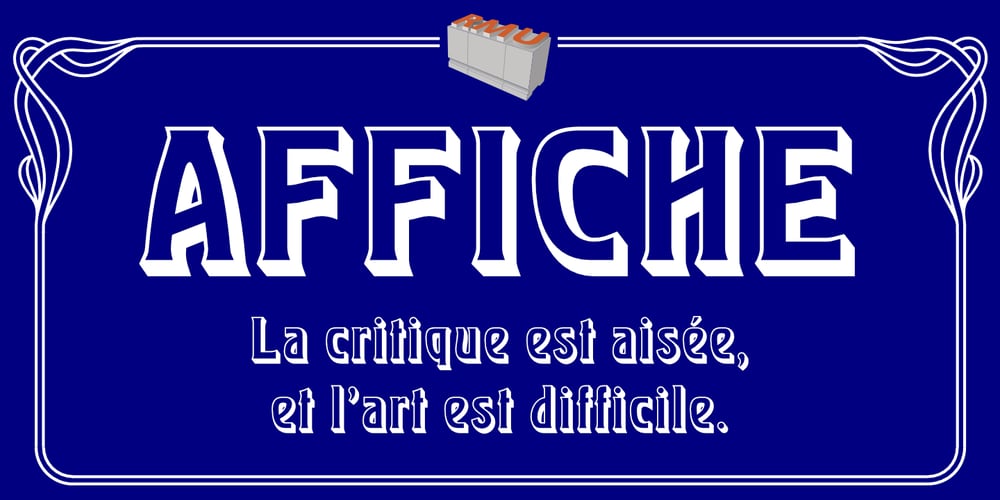
Affiche Font Family was designed by Ralph M. Unger and published by RMU. Affiche contains 1 styles and family package options. Based on the fin-de-siècle Helios Reklameschrift of the Klinkhardt foundry, Leipzig, Affiche preserves the beautiful art nouveau character of its hot-metal forerunner and was carefully extended to make it multilingual. For more historical authenticity, you can use the long s by typing [alt] and [b].